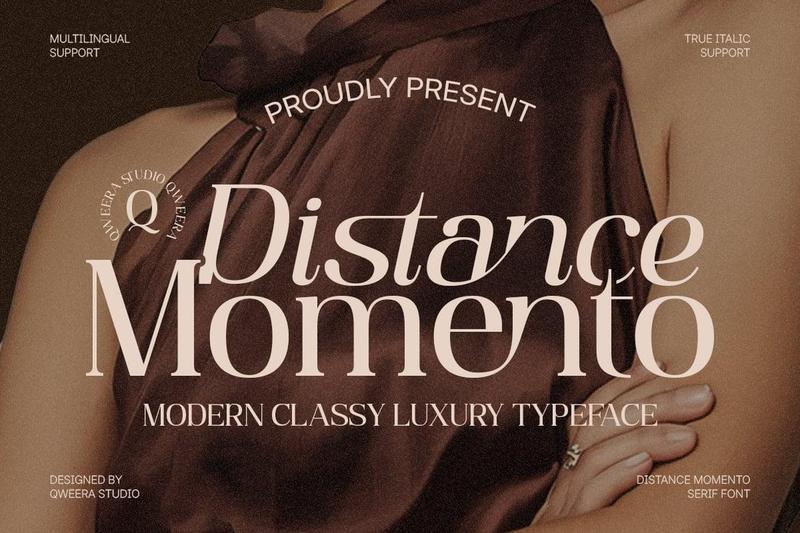
**Distance Momento** is a modern classy luxury serif typeface designed to bring sophistication, elegance, and premium character into contemporary creative projects. Featuring refined letterforms, stylish alternates, graceful ligatures, and true italic support, this font creates a polished typographic presence for high-end design work.
Perfect for luxury branding, fashion editorials, perfume packaging, beauty products, boutique identities, wedding invitations, premium logos, and upscale marketing materials.
Distance Momento blends modern serif structure with timeless luxury appeal, making it an excellent choice for designers seeking elegant typography with a refined editorial personality.
**Features**
– Uppercase & lowercase
– Alternates & ligatures
– Multilingual support
– Professional kerning
– Regular & True Italic
**Perfect For**
Luxury branding, fashion editorials, perfume packaging, beauty branding, boutique logos, wedding invitations, premium stationery